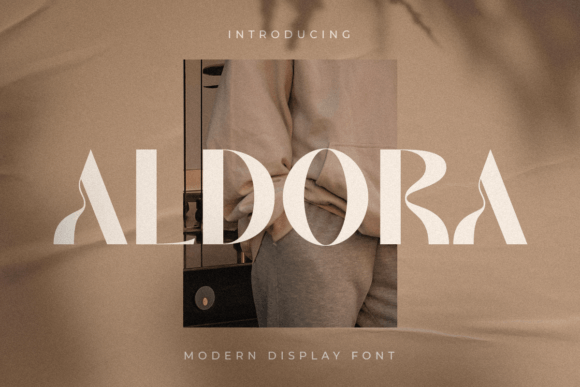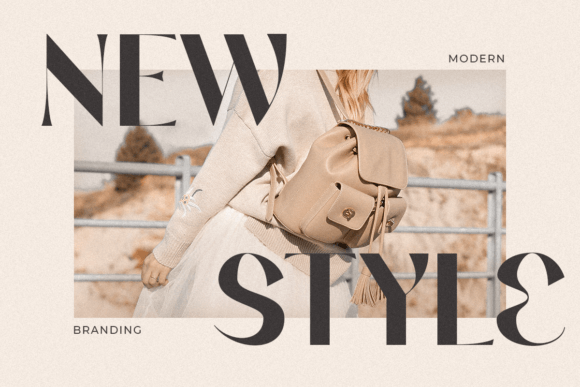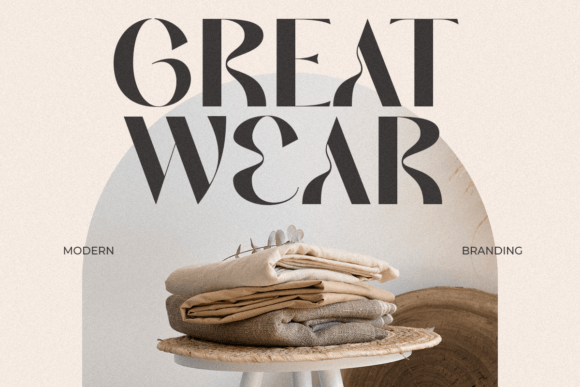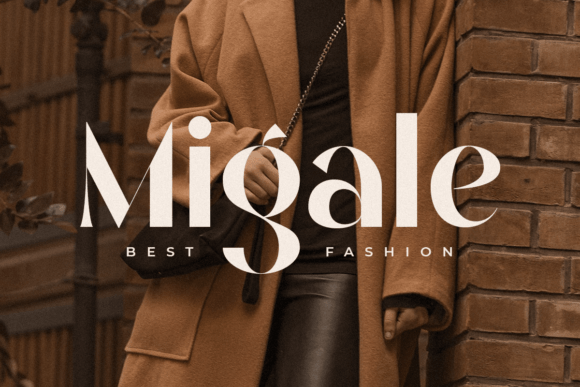
Aldora Font: An Elegant Serif for Modern Branding & Logo Design
About the Aldora Font
Add a touch of class to your work with the Aldora Font, a truly exceptional typeface. Aldora is a bold and assertive serif font. No matter the topic, this font will be an incredible asset to your fonts’ library, as it has the potential to elevate any creation.
Aldora’s assertive nature makes it ideal for headlines, logos, and short impactful statements in branding materials and posters. Its strong serifs lend themselves well to conveying authority and sophistication. However, its boldness makes it less suitable for body text or UI elements where readability over long stretches is paramount.
Consider pairing Aldora with a clean sans-serif like Open Sans for body text to create a balanced contrast; the geometric precision of Open Sans will complement Aldora’s strong strokes. For a more luxurious feel, a delicate script font could be used as an accent, providing an elegant counterpoint to Aldora’s assertiveness.
Aldora projects a powerful, confident personality, best suited for brands aiming for a sophisticated and authoritative image. Think high-end fashion, luxury goods, or corporate communications requiring a strong visual presence.